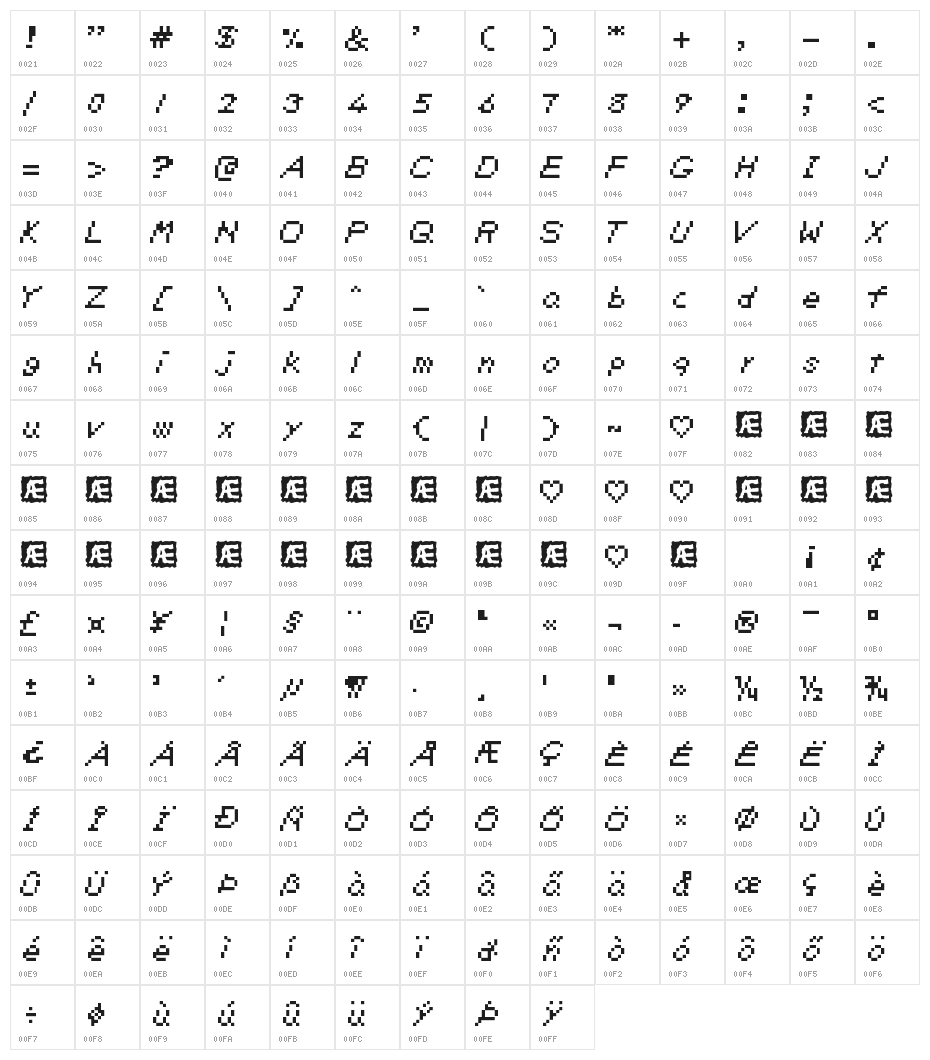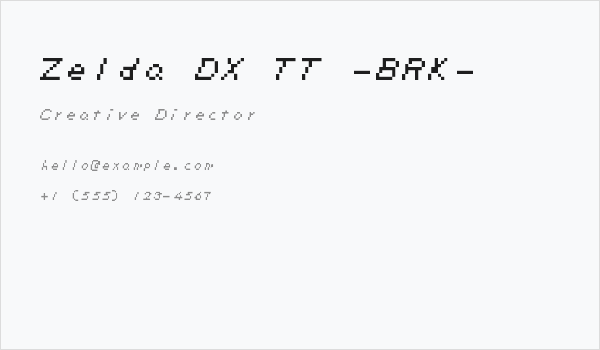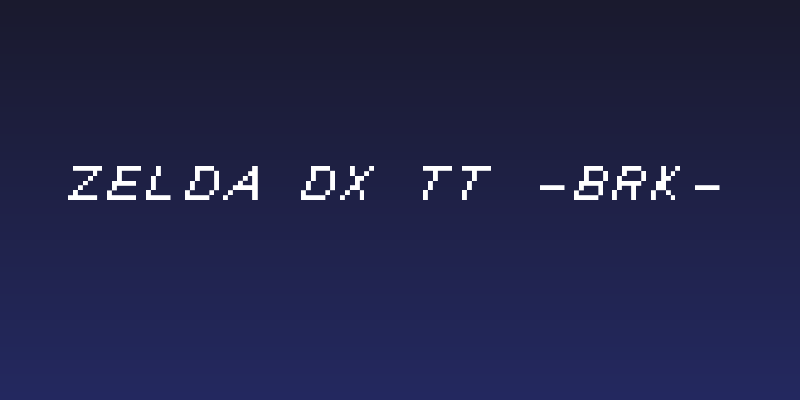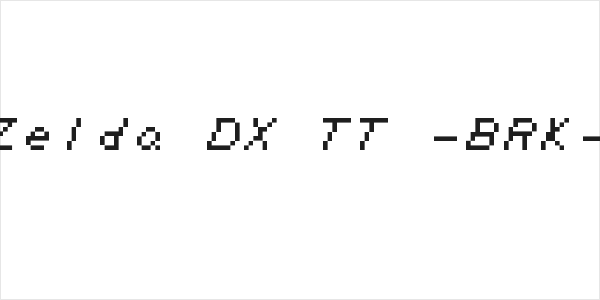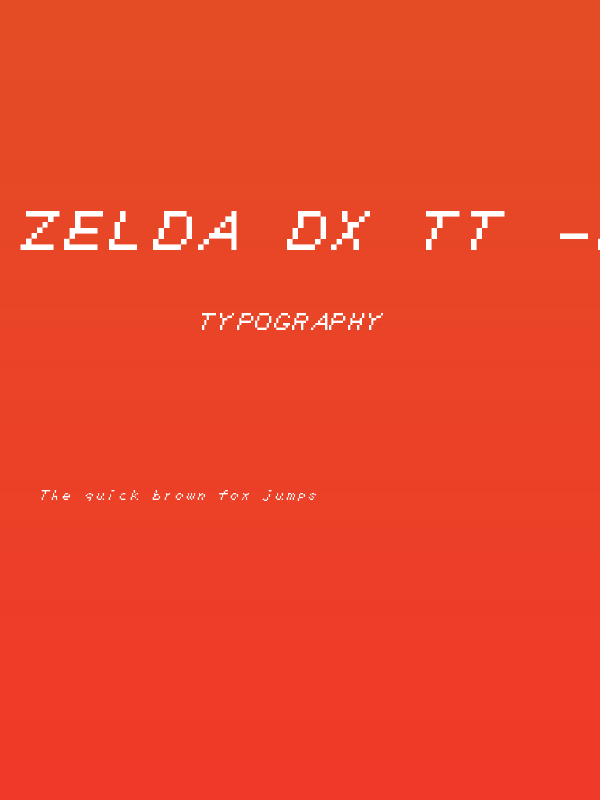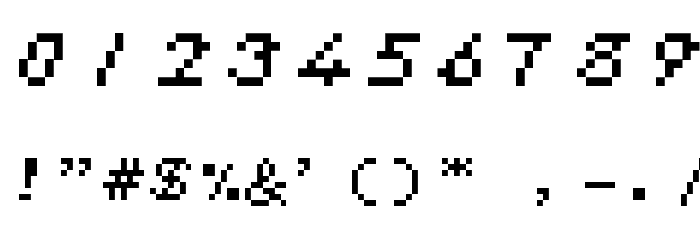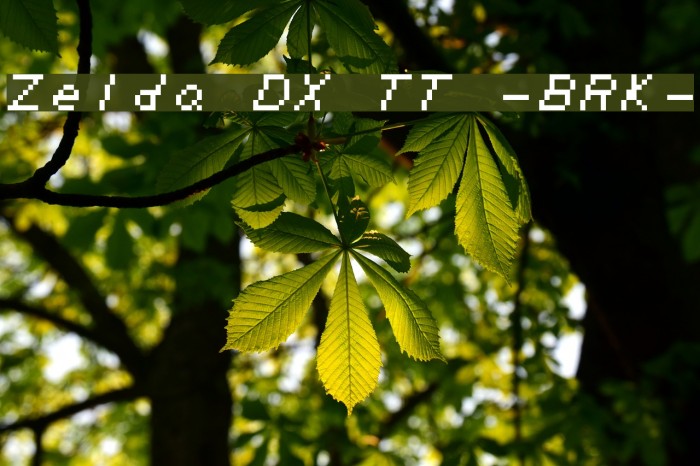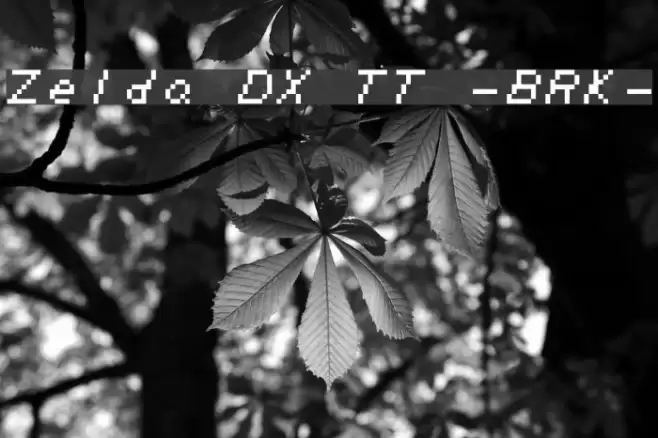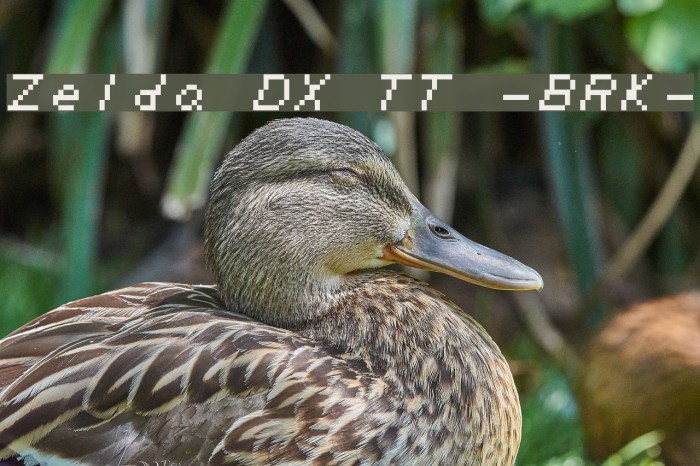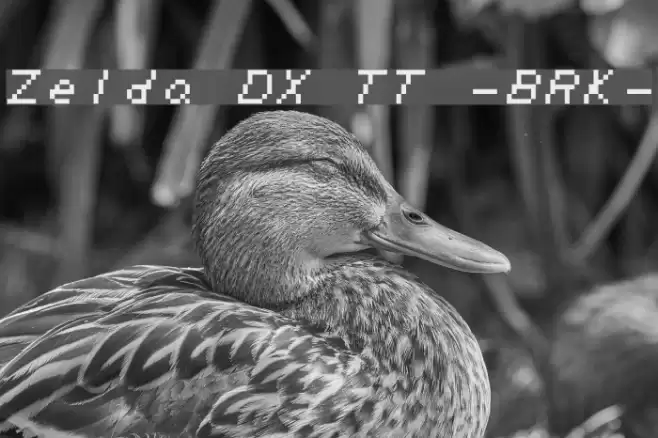
Zelda DX TT -BRK- Font
Zelda DX TT -BRK- Description
This font features a pixelated, retro style reminiscent of classic video games. The characters are composed of small square blocks, giving them a distinct, digital appearance. Uppercase and lowercase letters maintain a consistent height, with slight variations in width. The numbers and special characters follow the same pixelated design, ensuring uniformity across all glyphs. This font evokes a sense of nostalgia, ideal for projects that aim to capture the essence of early digital typography.
| Overall Style | Vintage |
| Use Case | Logos, Headlines, Digital Art |
| Proposed Projects | Ideal for video game design, retro-themed posters, digital art projects, and nostalgic branding. |